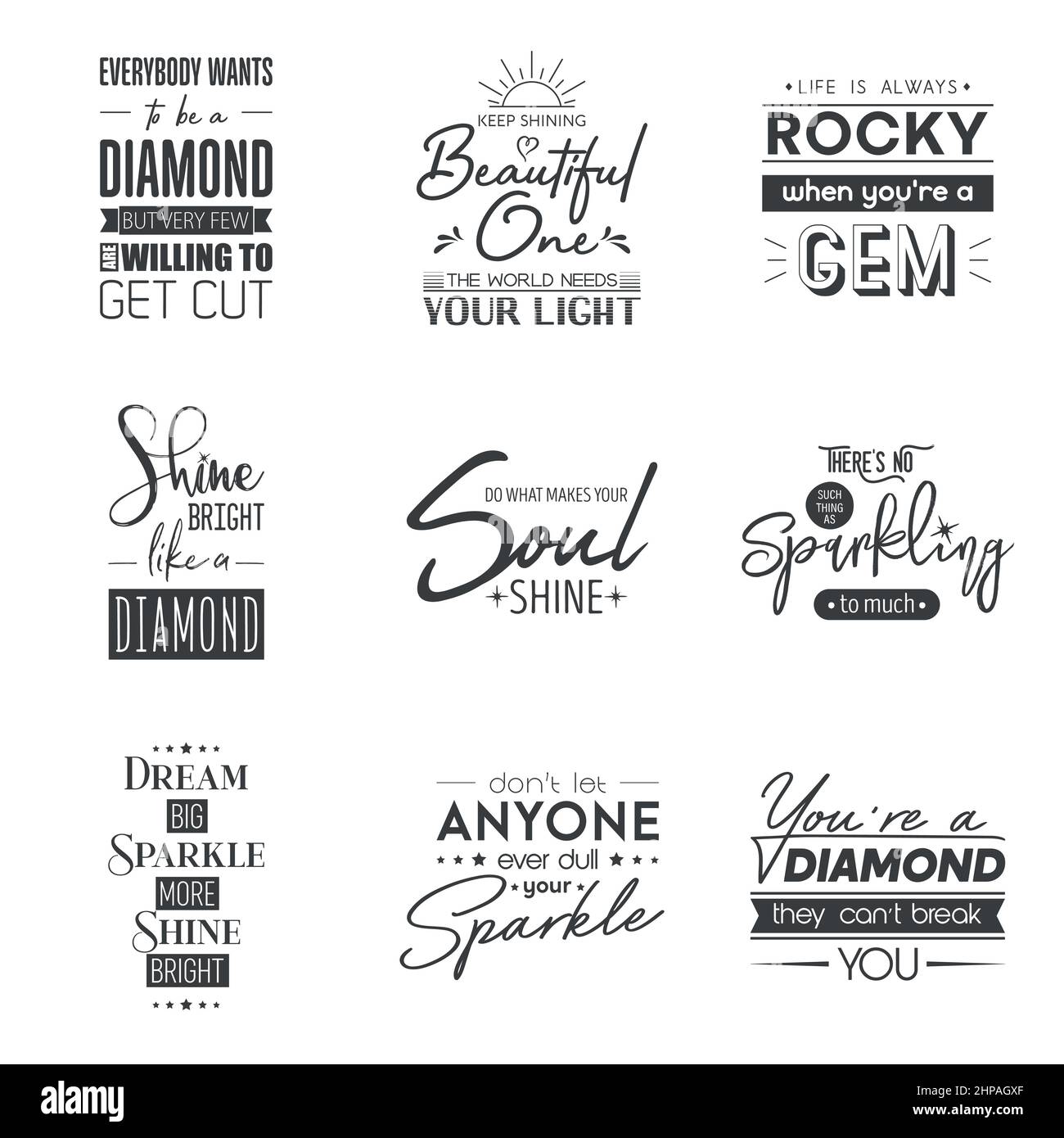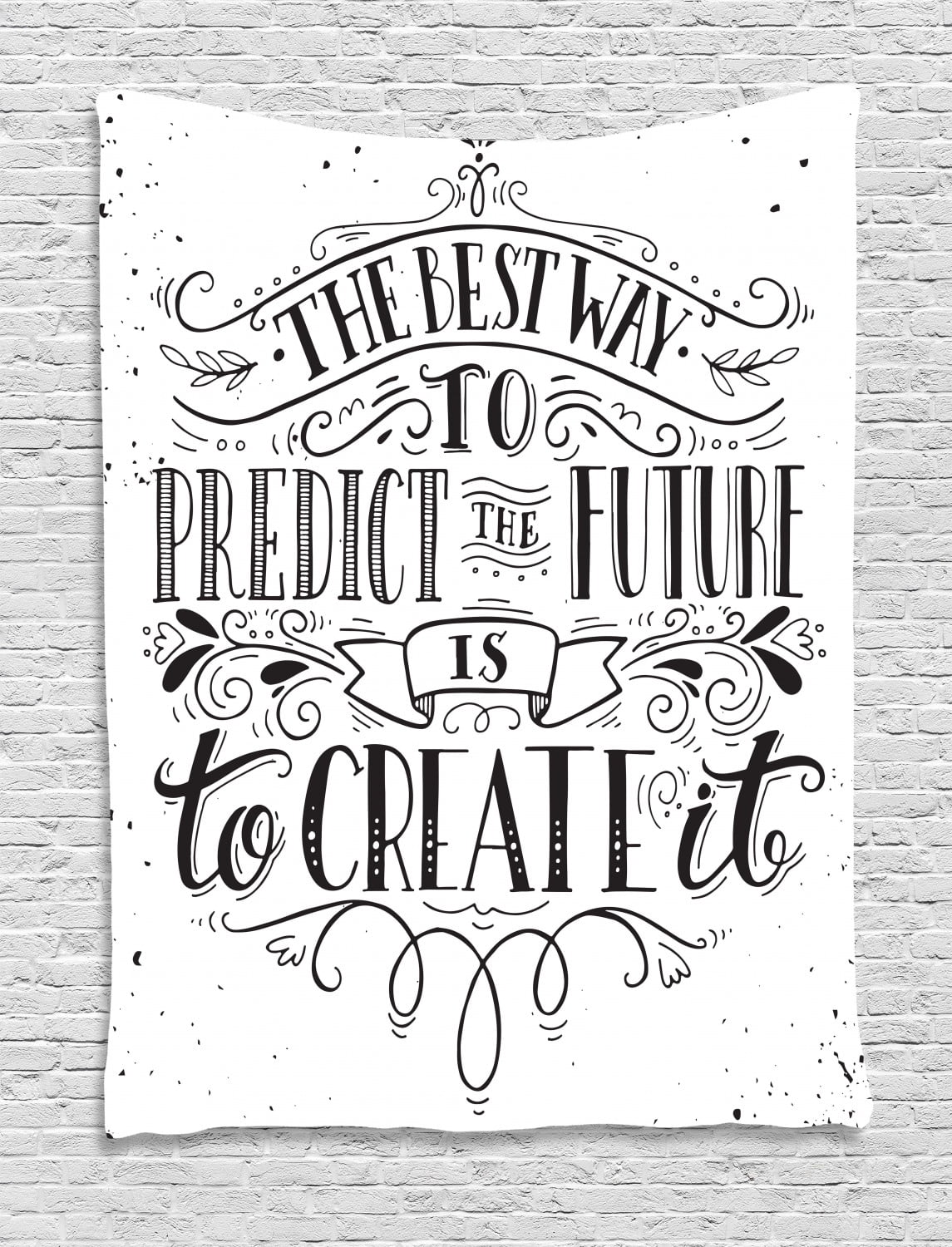
What Font Is Used For Inspirational Posters . By the end of this. Script typefaces can be used for posters as well, but they should be. 105+ best poster fonts. arial, helvetica, and verdana are examples of popular sans serif fonts. You'll want to pick fonts for posters that make sense with your poster. designing inspirational and motivational quotes and messages starts. the best fonts for posters. A great poster font has the power to turn even the most straightforward poster layout into a compelling design. Feb 10, 2017 at 10:53. whether it’s a bold advertising poster or a minimalist artistic piece, the right font sets the tone. But there's more to a good font style for poster design than just making the title big. font used on motivational posters? notice how there's usually large, bold emphasis on the title or key parts of the design. One of the key ideas here is that fonts are communicative.
notice how there's usually large, bold emphasis on the title or key parts of the design. 105+ best poster fonts. whether it’s a bold advertising poster or a minimalist artistic piece, the right font sets the tone. Feb 10, 2017 at 10:53. font used on motivational posters? arial, helvetica, and verdana are examples of popular sans serif fonts. You'll want to pick fonts for posters that make sense with your poster. By the end of this. designing inspirational and motivational quotes and messages starts. One of the key ideas here is that fonts are communicative.
What Font Is Used For Inspirational Posters Script typefaces can be used for posters as well, but they should be. whether it’s a bold advertising poster or a minimalist artistic piece, the right font sets the tone. One of the key ideas here is that fonts are communicative. By the end of this. Script typefaces can be used for posters as well, but they should be. Feb 10, 2017 at 10:53. A great poster font has the power to turn even the most straightforward poster layout into a compelling design. You'll want to pick fonts for posters that make sense with your poster. the best fonts for posters. font used on motivational posters? arial, helvetica, and verdana are examples of popular sans serif fonts. 105+ best poster fonts. notice how there's usually large, bold emphasis on the title or key parts of the design. But there's more to a good font style for poster design than just making the title big. designing inspirational and motivational quotes and messages starts.
Font & Typography Lovers WATCH OUT! Let this amazing typography quote What Font Is Used For Inspirational Posters arial, helvetica, and verdana are examples of popular sans serif fonts. Script typefaces can be used for posters as well, but they should be. font used on motivational posters? But there's more to a good font style for poster design than just making the title big. You'll want to pick fonts for posters that make sense with your. What Font Is Used For Inspirational Posters.
20 Inspirational Posters that will Motivate You in The Office, Studio What Font Is Used For Inspirational Posters whether it’s a bold advertising poster or a minimalist artistic piece, the right font sets the tone. designing inspirational and motivational quotes and messages starts. A great poster font has the power to turn even the most straightforward poster layout into a compelling design. One of the key ideas here is that fonts are communicative. But there's more. What Font Is Used For Inspirational Posters.
20+ Best Inspirational & Motivational Typography Design Posters With Quotes What Font Is Used For Inspirational Posters You'll want to pick fonts for posters that make sense with your poster. notice how there's usually large, bold emphasis on the title or key parts of the design. 105+ best poster fonts. But there's more to a good font style for poster design than just making the title big. the best fonts for posters. Feb 10,. What Font Is Used For Inspirational Posters.
20 Inspirational Posters that will Motivate You in The Office, Studio What Font Is Used For Inspirational Posters One of the key ideas here is that fonts are communicative. arial, helvetica, and verdana are examples of popular sans serif fonts. By the end of this. Feb 10, 2017 at 10:53. the best fonts for posters. A great poster font has the power to turn even the most straightforward poster layout into a compelling design. font. What Font Is Used For Inspirational Posters.
1920x1200 motivational, multicolor, posters, quotes, text, textures What Font Is Used For Inspirational Posters 105+ best poster fonts. whether it’s a bold advertising poster or a minimalist artistic piece, the right font sets the tone. A great poster font has the power to turn even the most straightforward poster layout into a compelling design. Script typefaces can be used for posters as well, but they should be. the best fonts for. What Font Is Used For Inspirational Posters.
25+ Inspirational Typography Design Posters With Quotes What Font Is Used For Inspirational Posters designing inspirational and motivational quotes and messages starts. Script typefaces can be used for posters as well, but they should be. notice how there's usually large, bold emphasis on the title or key parts of the design. 105+ best poster fonts. You'll want to pick fonts for posters that make sense with your poster. A great poster. What Font Is Used For Inspirational Posters.
60+ Best Big, Poster Fonts of 2020 Design Shack What Font Is Used For Inspirational Posters the best fonts for posters. A great poster font has the power to turn even the most straightforward poster layout into a compelling design. notice how there's usually large, bold emphasis on the title or key parts of the design. But there's more to a good font style for poster design than just making the title big. One. What Font Is Used For Inspirational Posters.
Inspiration Hand Drawn Font Script Fonts Creative Market What Font Is Used For Inspirational Posters whether it’s a bold advertising poster or a minimalist artistic piece, the right font sets the tone. the best fonts for posters. You'll want to pick fonts for posters that make sense with your poster. But there's more to a good font style for poster design than just making the title big. Feb 10, 2017 at 10:53. . What Font Is Used For Inspirational Posters.